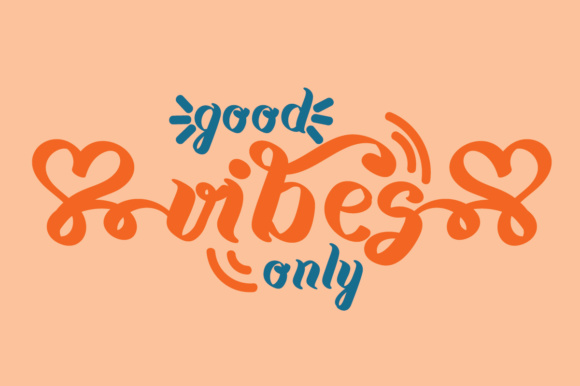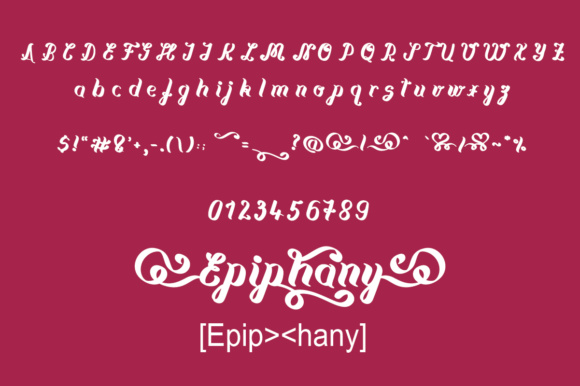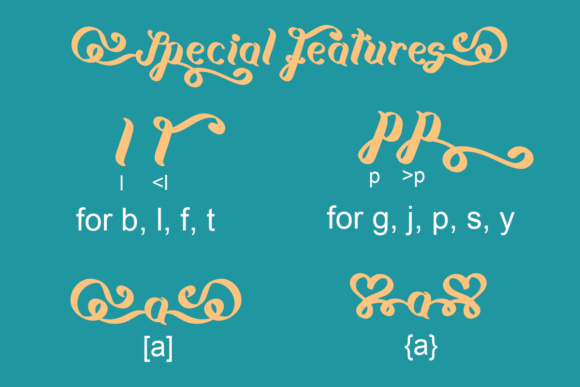
Epiphany Font
About Epiphany Font
Epiphany is a bold rounded script that comes with matching initial and terminal swashes. It has a good readability and will give your design a striking, yet elegant look.